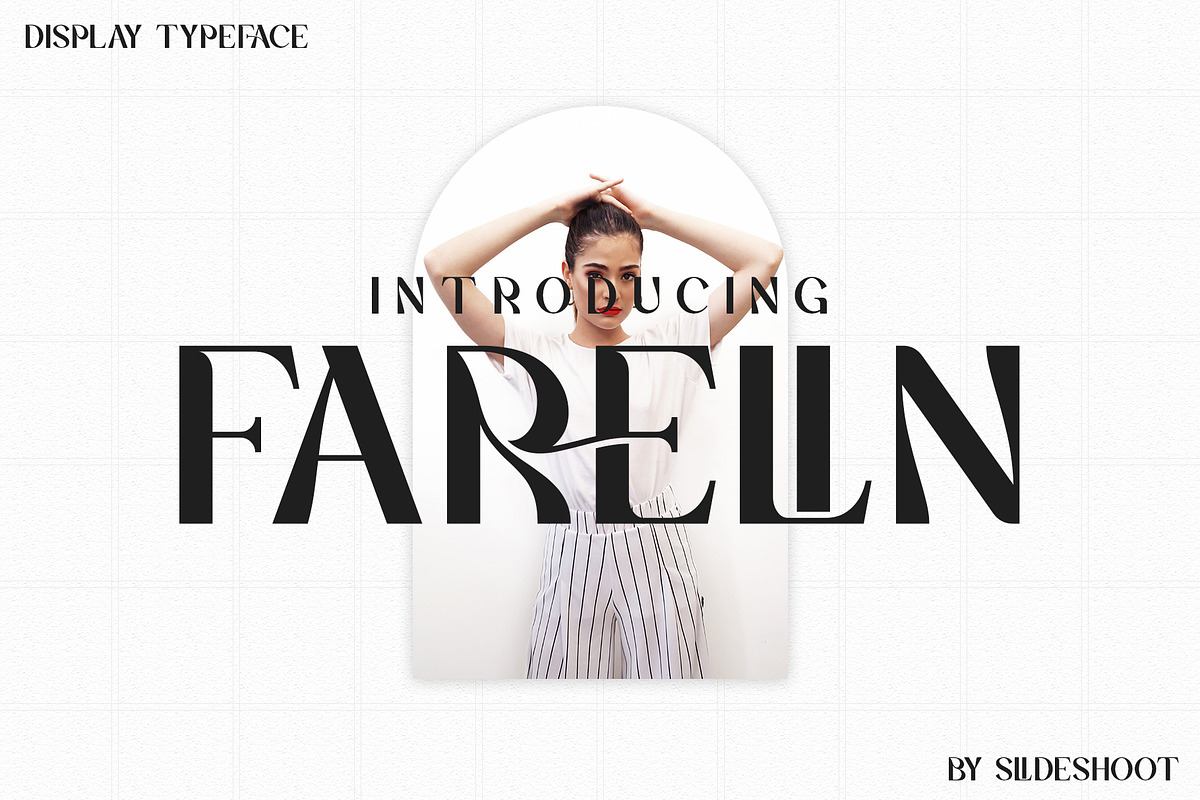
Farelin Display Font Free Download
Farelin Display Font Free Download is a stylish and eye-catching typeface crafted to make a bold visual statement. With its elegant curves, high contrast strokes, and refined letterforms, Farelin is perfect for fashion branding, editorial headlines, luxury packaging, logo design, and modern advertising.
Designed for display use, this font commands attention while maintaining a graceful and upscale aesthetic. Whether you're creating a magazine cover, a boutique identity, or a premium product label, Farelin adds sophistication and a contemporary edge to your typography.